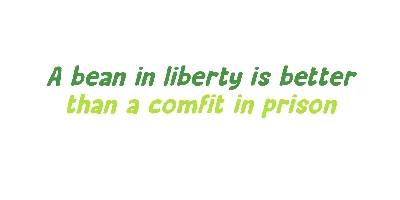
Beanstalker Font
Beanstalker Font is an exceptional choice for projects that demand a whimsical, organic, and distinctly playful aesthetic, often with a tall, growing, or fairytale-inspired feel. It's perfectly suited for children's literature, fantasy game titles, garden-themed branding, whimsical invitations, and any design where you want to evoke a sense of magical growth, natural wonder, and adventurous charm. Imagine it gracing the cover of an enchanting storybook, adding a unique and friendly touch to an eco-conscious brand's logo, or giving a distinctive, handcrafted personality to an outdoor event's promotional materials. Its elongated, often quirky forms ensure your message is conveyed with both imagination and an undeniable sense of wonder.
What makes Beanstalker Font so exciting is its ability to instantly infuse a design with a sense of playful ascent and organic vitality. It captures the essence of a blossoming journey, making it ideal for projects that aim to feel imaginative, nurturing, and deeply engaging. This font isn't just about displaying text; it’s about storytelling, adding a layer of charming fantasy and a lively, growing character to your visuals. It's the ideal tool for designers looking to infuse their work with a unique, whimsical spirit and a strong, nature-inspired appeal.
The Beanstalker Font family typically focuses on delivering its signature playful and organic style with precision. You might find a standard Regular weight that embodies its core whimsical design, along with potential variations that enhance its handcrafted appearance, such as slight stylistic alterations or a more condensed version for specific applications. These nuances ensure that Beanstalker Font can be the cornerstone of a truly unique and powerfully thematic visual identity, helping your designs stand out with an undeniable sense of character and lighthearted authenticity.